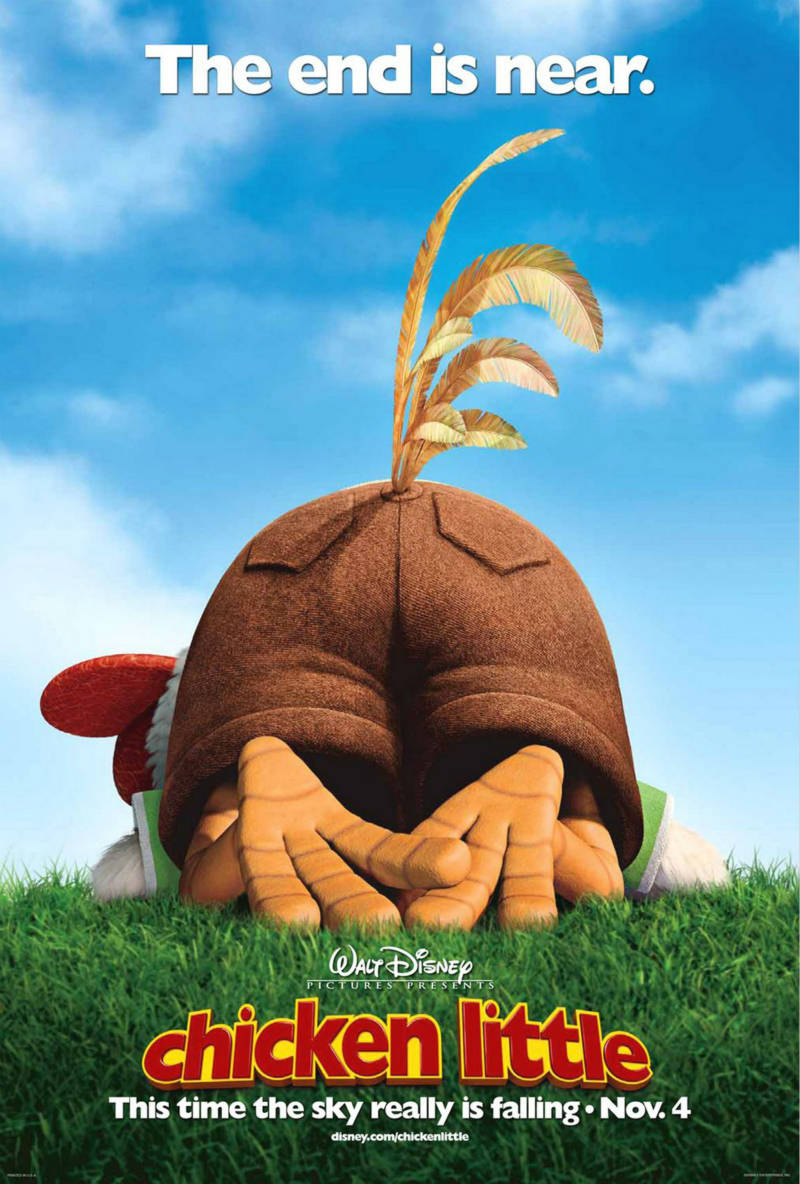
Chicken Little Font
AnimationChicken Little is an American computer-animated science fiction comedy film produced by Walt Disney Feature Animation. The film follows the adventures of a young chicken named Chicken Little, who causes panic in his hometown when he falsely believes that the sky is falling.
The Chicken Little title in the poster uses a humanist sans serif font called Gill Sans ExtraBold Display. Gill Sans was created by British designer Eric Gill in the 1920s.